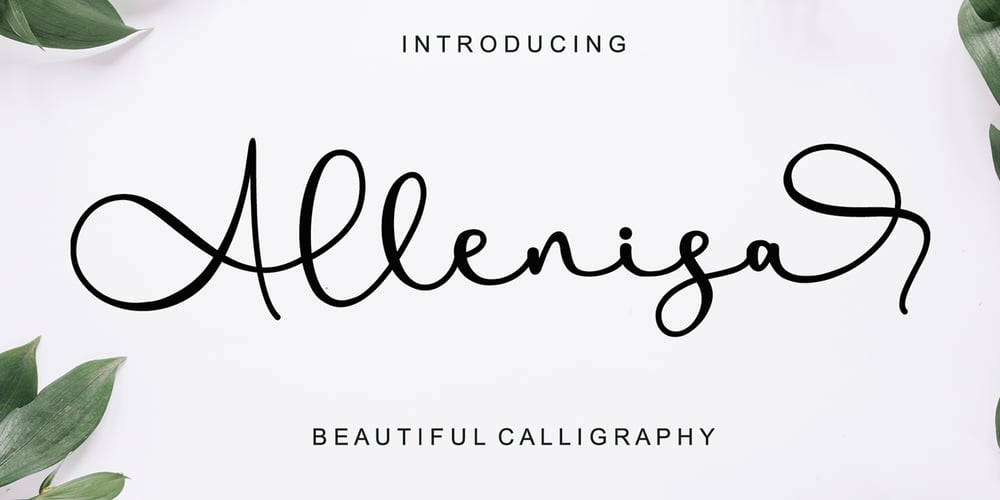
Allenisa Font Family was designed by Ahmad Afandi and published by Letterafandi Studio. Allenisa contains 1 styles and family package options. Allenisa is a chic, refined script font that emanates sophistication and elegance. Its stylish alternates and ligatures make this font the perfect match for any project. Allenisa is PUA encoded which means you can access all of the glyphs and swashes with ease!